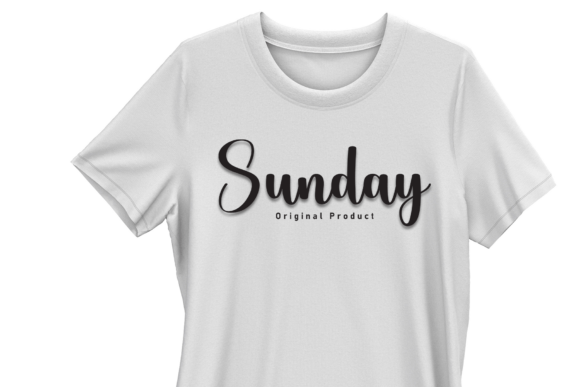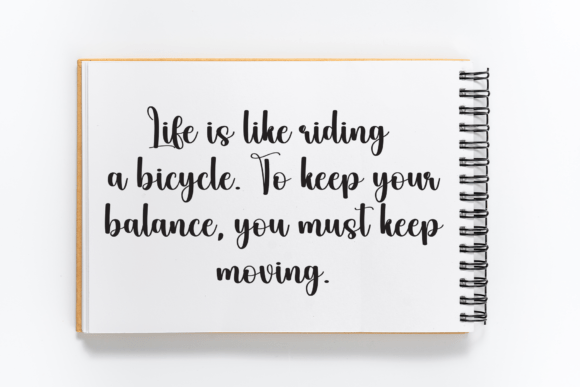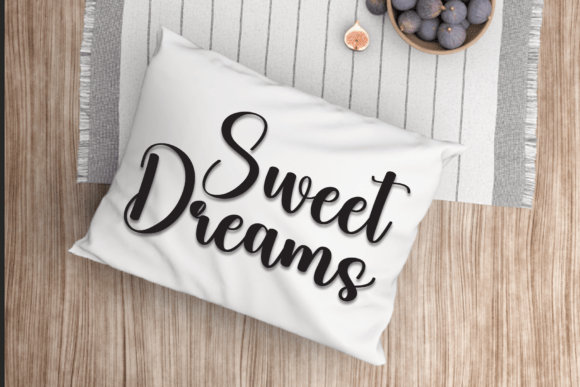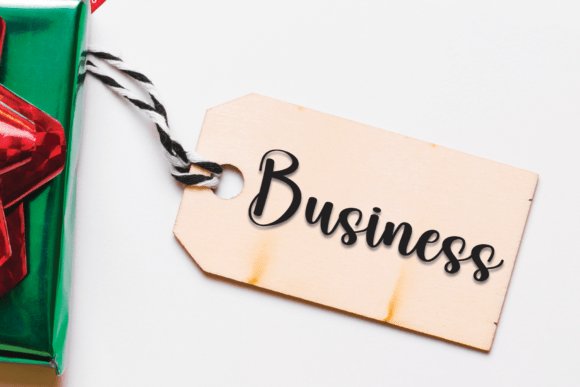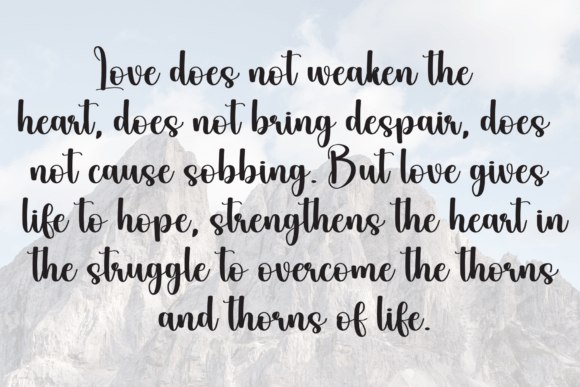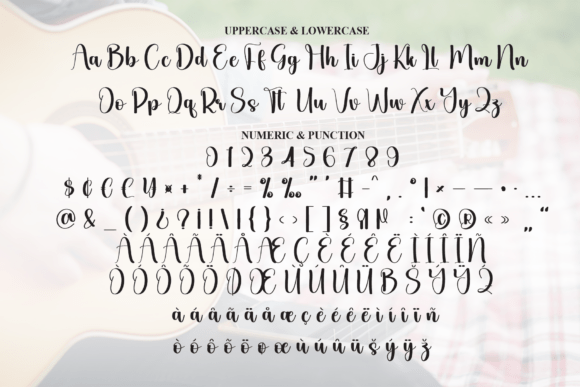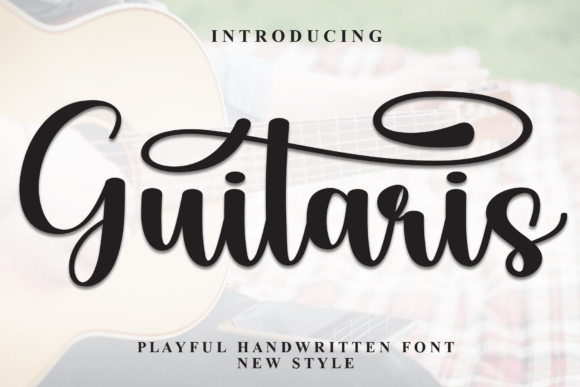
Guitaris Font: A Graceful Handwritten Script for Romantic Expressions
In the realm of typography, few fonts capture the essence of warmth and affection as beautifully as Guitaris. This elegant handwritten script font is designed to convey emotions with style and charm, making it an ideal choice for romantic projects, wedding invitations, branding, and heartfelt messages. With its flowing strokes and elegant curves, Guitaris radiates a sense of intimacy and personal touch that is hard to find in digital communication.
The Characteristics of Guitaris Font
Guitaris is more than just a font; it’s an expression of emotion. Its graceful handwritten script is characterized by:
- Flowing Strokes: Each letter in Guitaris is crafted with flowing strokes that give it a dynamic and fluid feel. This quality makes it perfect for creating a sense of movement and elegance in any design.
- Elegant Curves: The font features elegant curves that add to its charm and sophistication. These curves contribute to the overall romantic and affectionate feel of Guitaris.
- Versatility: Despite its specific romantic connotation, Guitaris is incredibly versatile. It can be used for a wide range of projects, from wedding invitations and romantic letters to branding and personal greeting cards.
Applications of Guitaris Font
The unique qualities of Guitaris make it suitable for various applications where conveying emotion and creating a personal connection is key. Some of the most popular uses include:
- Wedding Invitations: The font’s romantic and elegant feel makes it a perfect choice for wedding invitations, save-the-date cards, and other wedding-related stationery.
- Branding: For businesses that want to convey warmth and personal touch, Guitaris can be a great addition to their brand identity. It’s especially suitable for brands in the lifestyle, beauty, and food industries.
- Heartfelt Messages: Whether it’s for Valentine’s Day, anniversaries, or just because, Guitaris is ideal for creating heartfelt messages that speak directly to the heart.
- Romantic Projects: Designers working on romantic projects will find Guitaris to be a valuable asset. Its elegance and charm can elevate any design, making it more impactful and memorable.
Why Designers and Crafters Love Guitaris
Designers and crafters appreciate fonts that can help them create a specific mood or convey a particular emotion. Guitaris stands out for several reasons:
- Emotional Connection: Guitaris helps create an emotional connection with the audience. Its warm and affectionate feel can make any message more personal and engaging.
- Aesthetic Appeal: The aesthetic appeal of Guitaris is undeniable. Its elegant design and flowing strokes make it a pleasure to use in various projects.
- Easy to Read: Despite its elegant and cursive nature, Guitaris remains easy to read, making it practical for both digital and print projects.
How to Use Guitaris Effectively
To make the most of Guitaris, consider the following tips:
- Pair with Complementary Fonts: Pair Guitaris with simpler, sans-serif fonts for contrast and to create visual interest.
- Adjust Letter Spacing: For a more customized look, adjust the letter spacing. This can enhance the flowing feel of the font.
- Use in Headers and Titles: Guitaris shines in headers and titles. Use it to draw attention and add a personal touch to your designs.
Guitaris font is a beautiful addition to any designer’s toolkit, especially for those who focus on romantic, personal, and heartfelt projects. Its graceful handwritten script, flowing strokes, and elegant curves make it perfect for a variety of applications, from wedding invitations to branding. By incorporating Guitaris into your projects, you can convey emotions with style and charm, creating a lasting impression on your audience.
Whether you’re a professional designer or a crafter, Guitaris offers a way to infuse your work with warmth, affection, and a personal touch. Explore the possibilities of Guitaris and discover how this graceful font can elevate your designs and messages.